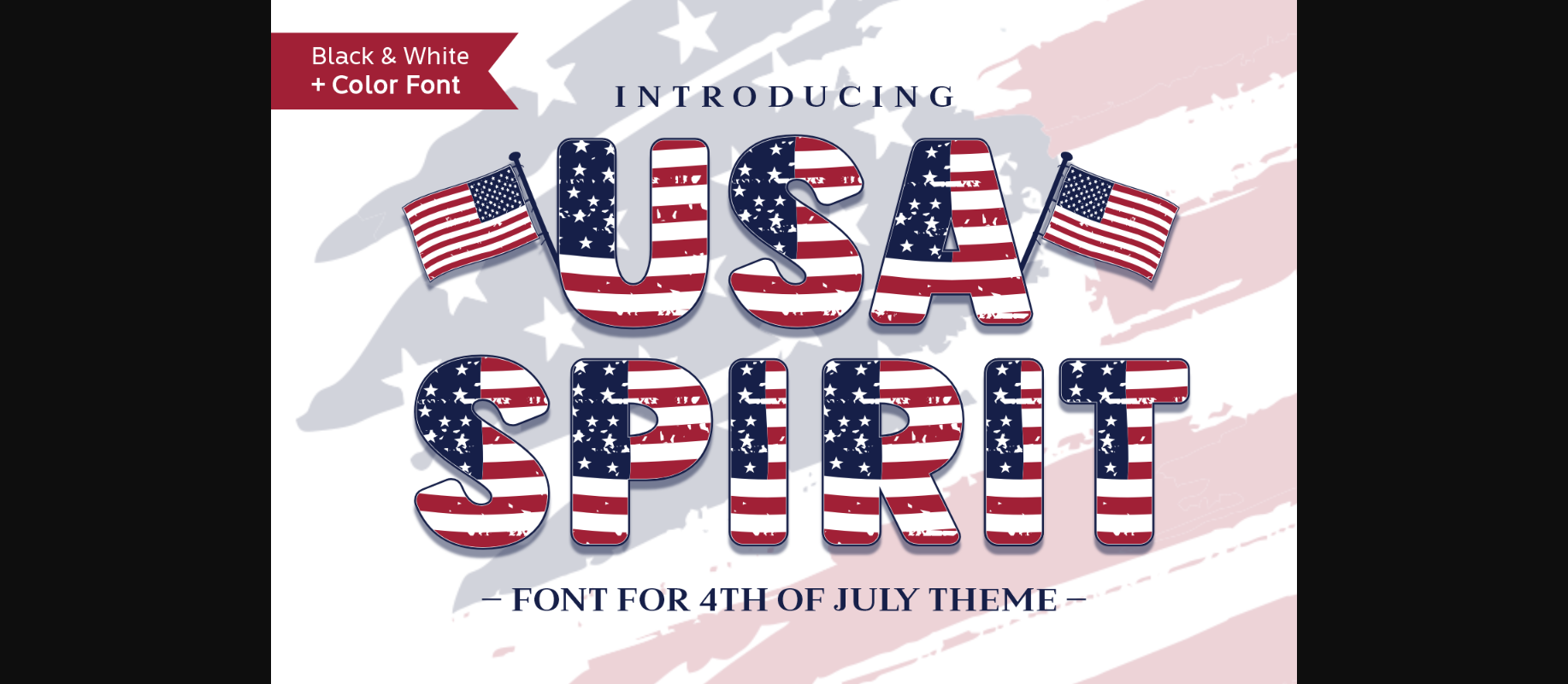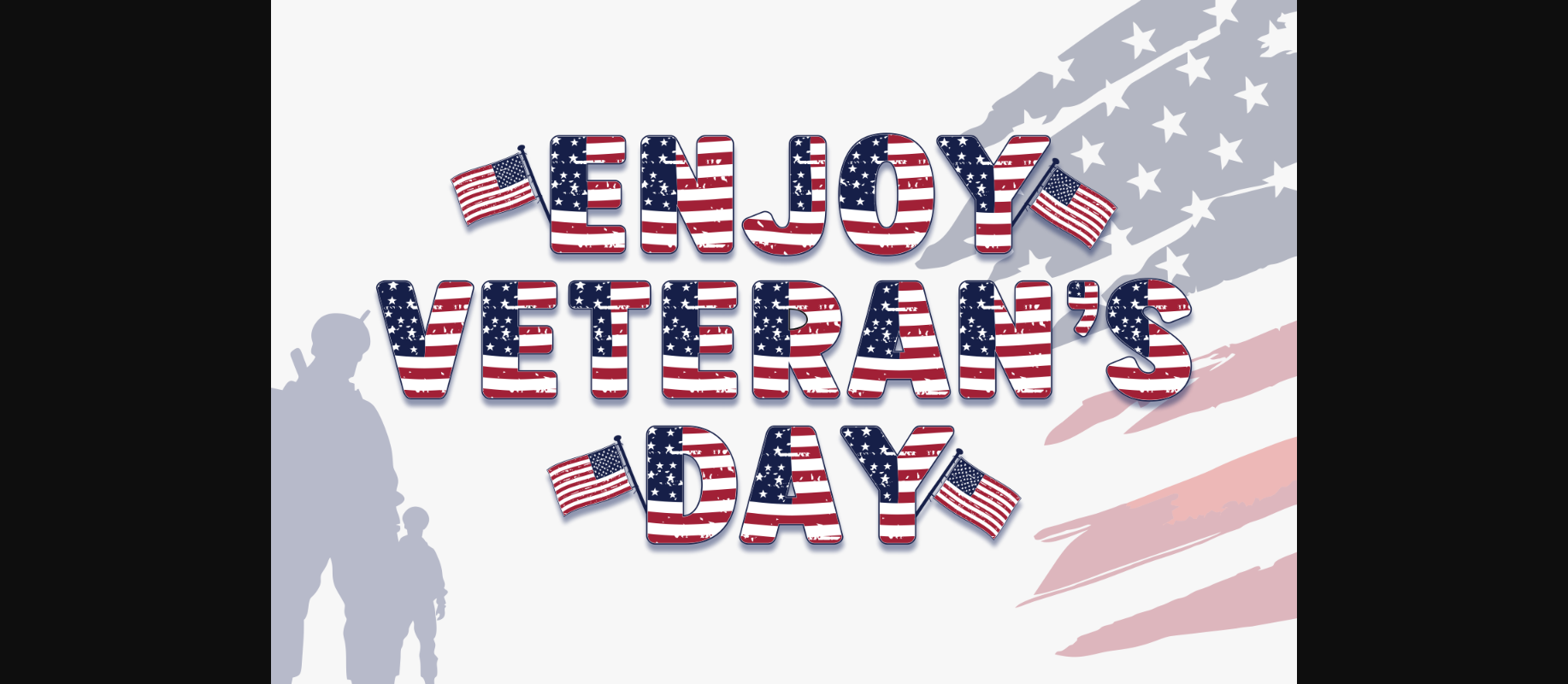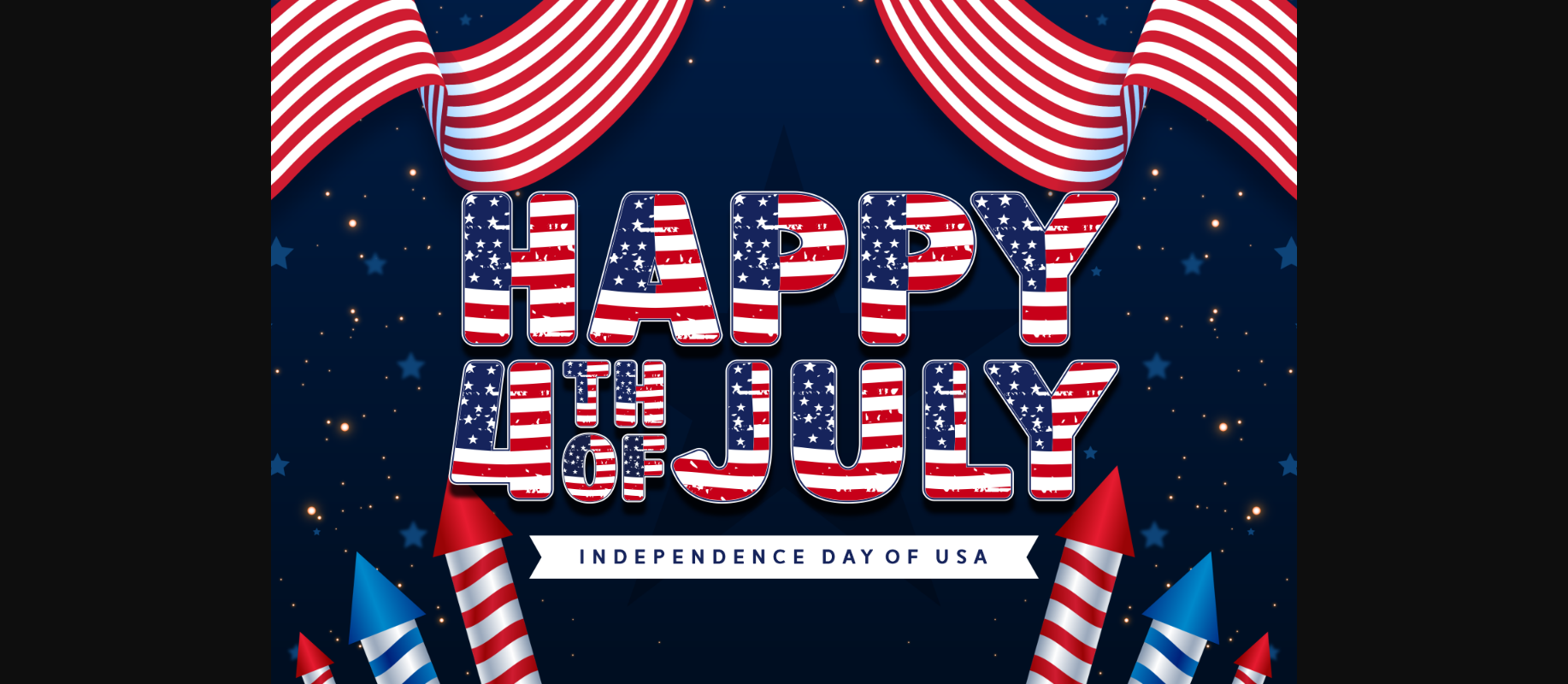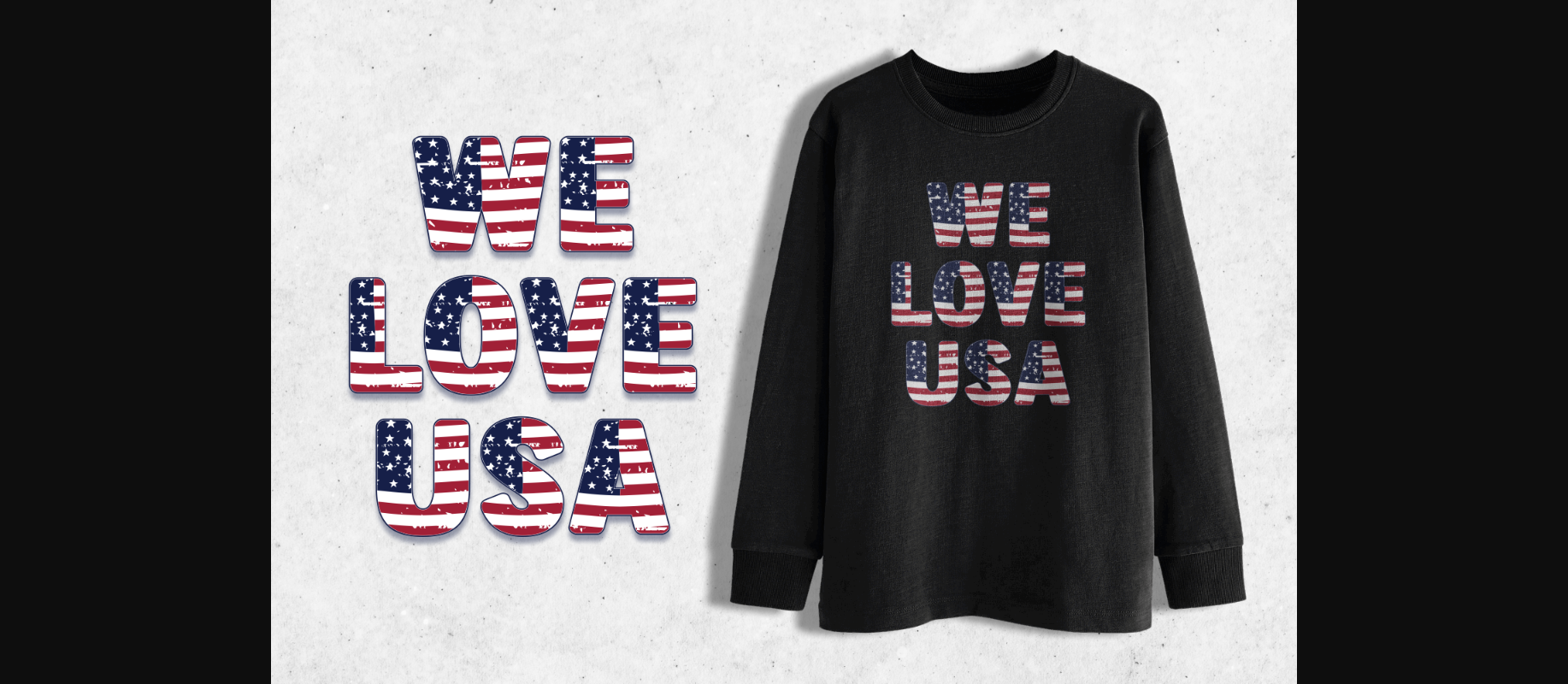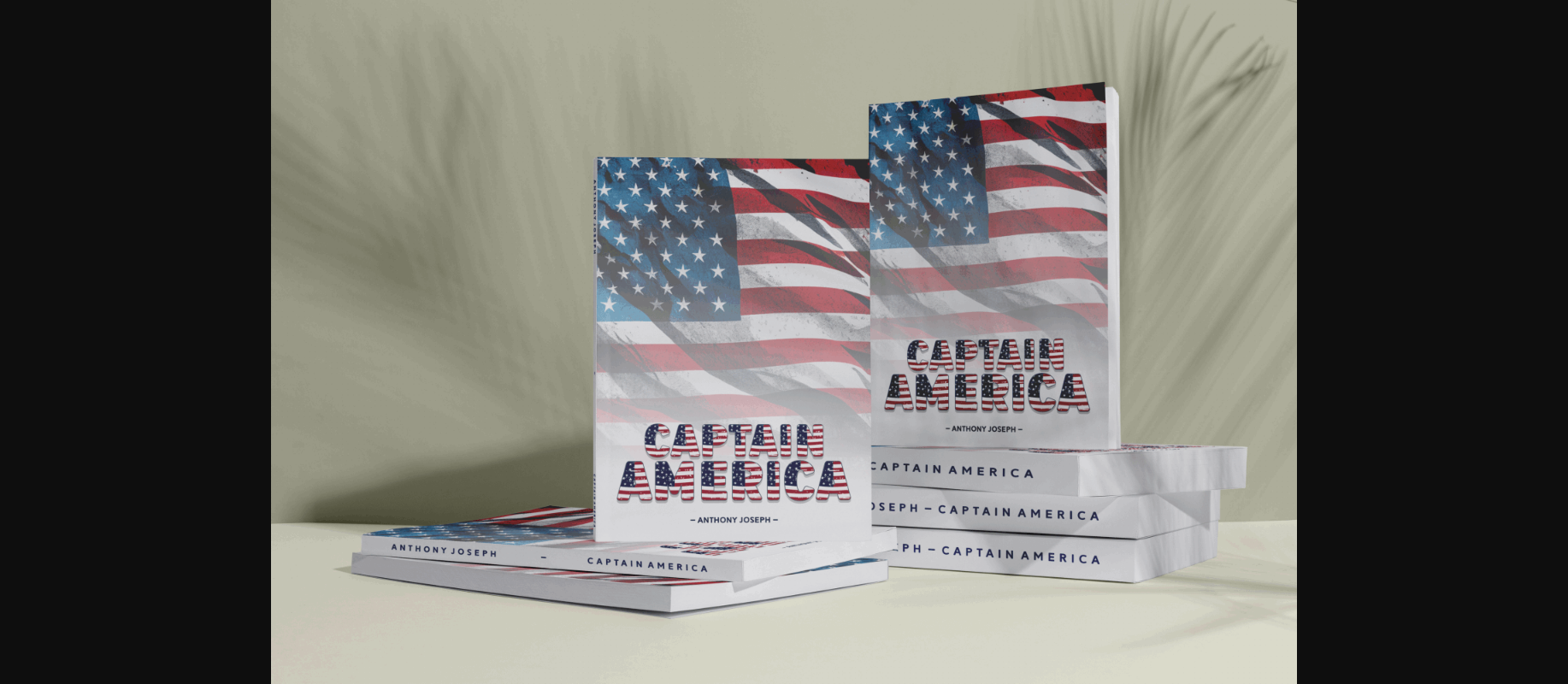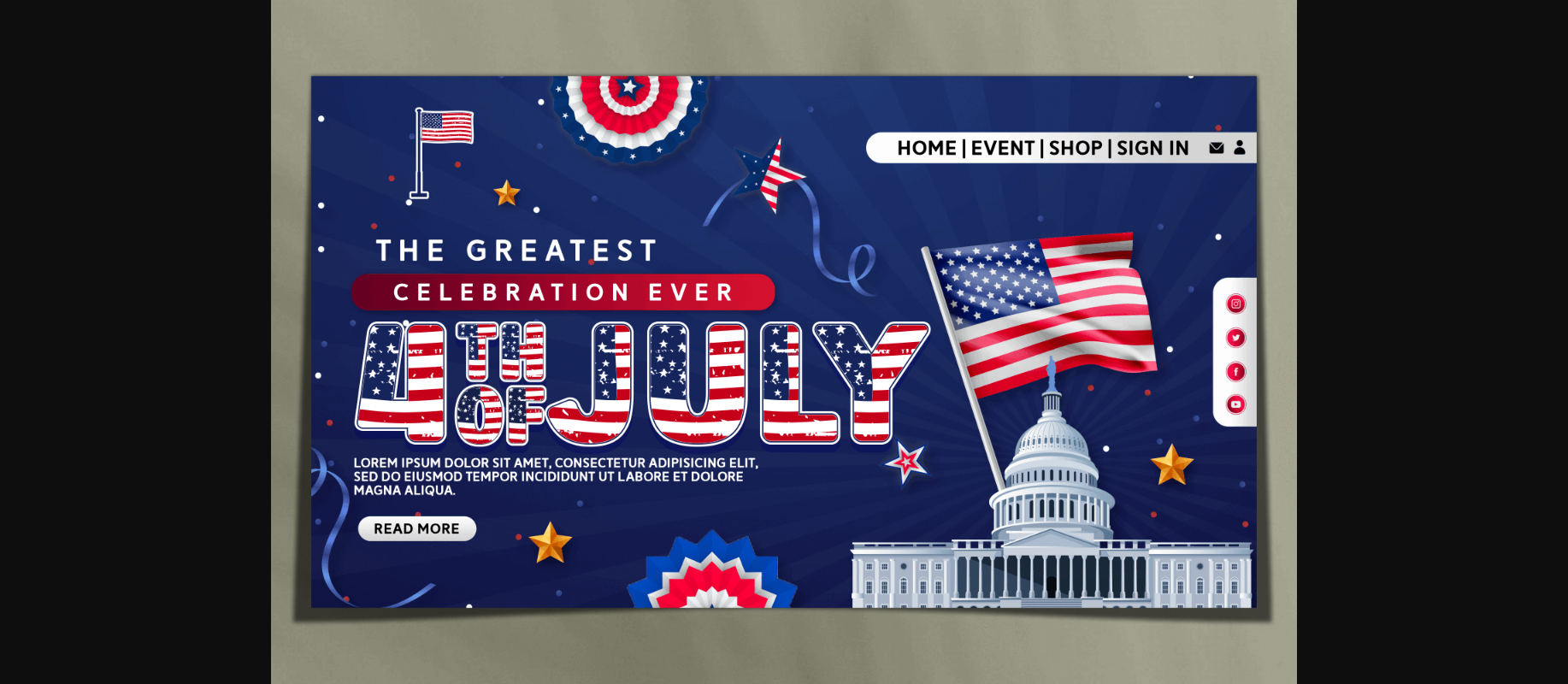
Usa Spirit Font
About Usa Spirit Font
Usa Spirit is a fun and patriotic decorative (and color) font that is perfect for any project related to the United States of America. This font features bold, blocky letters that are filled with stars and stripes, making it the perfect choice for designs related to the Fourth of July, Memorial Day, or any other patriotic event. Its playful style adds a touch of whimsy to any project.